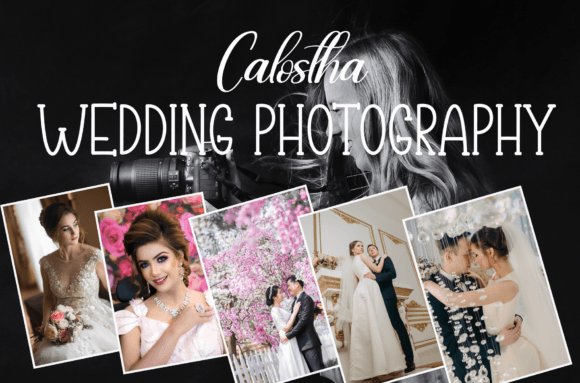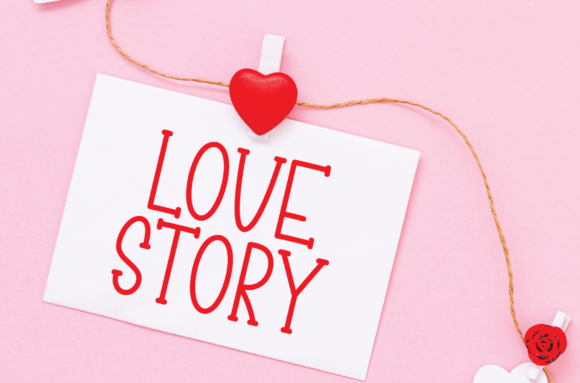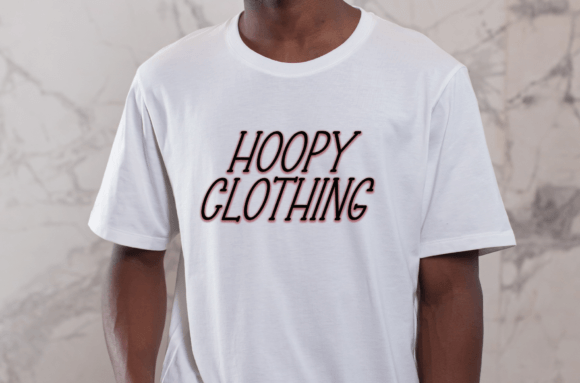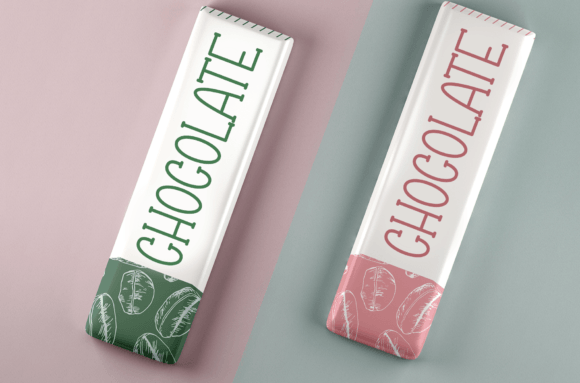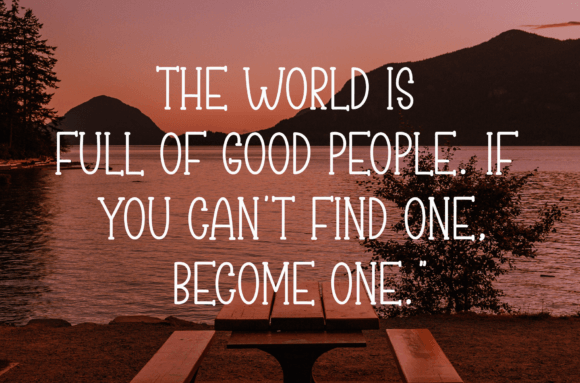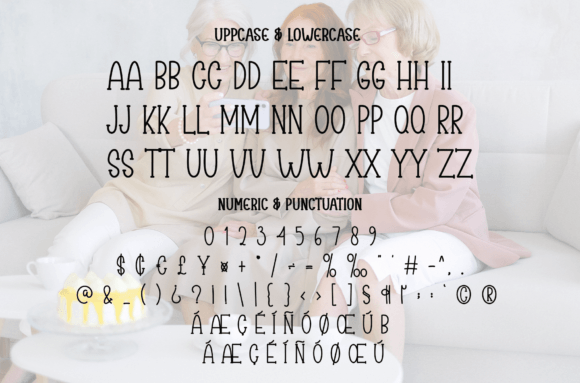
Introduction to Pension Time Font
Pension Time is a sweet and friendly handwritten font.
Fresh and neat, this font is ideal for writing wedding invitations, cards, or any other design that might need a fun touch .